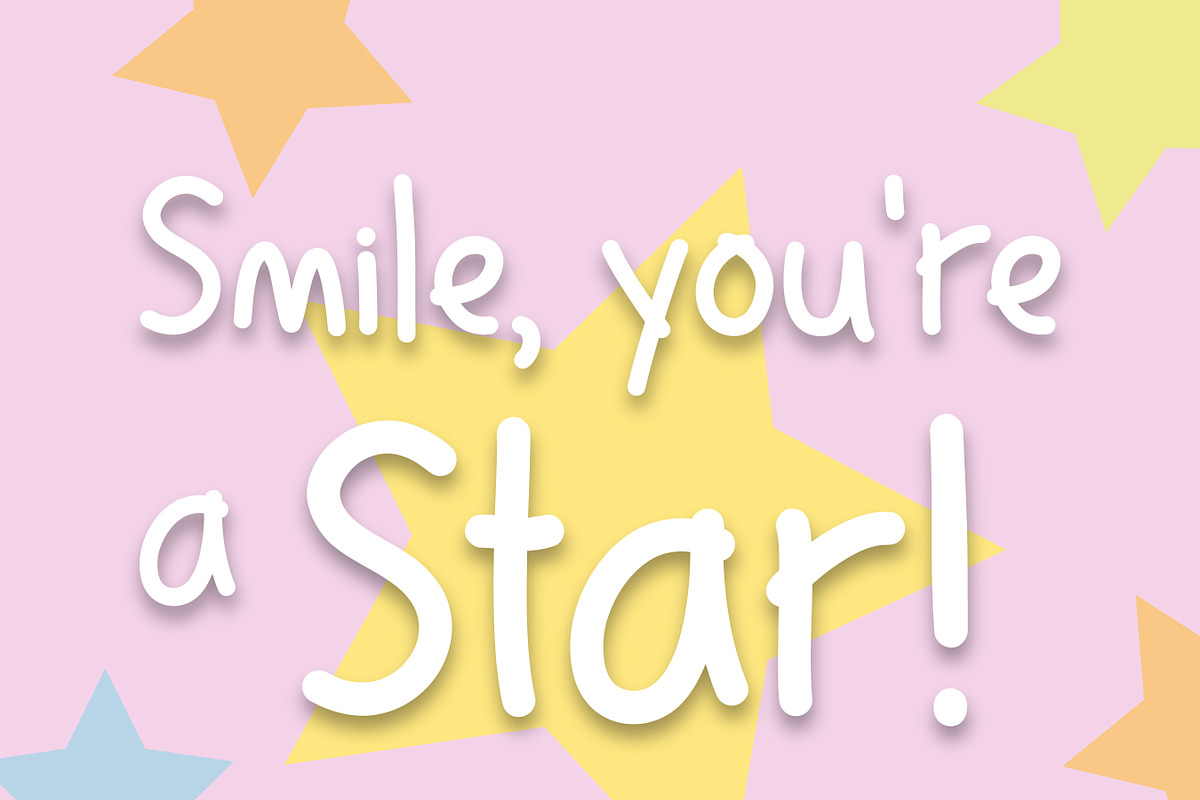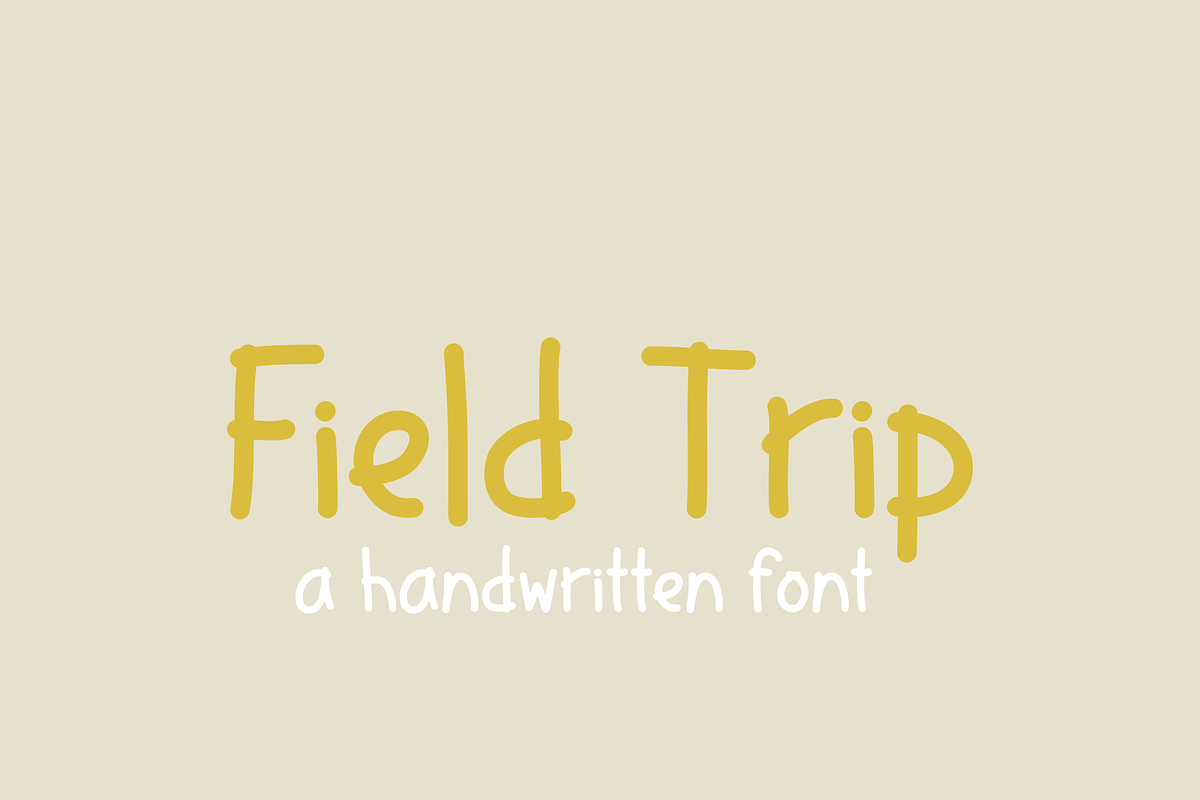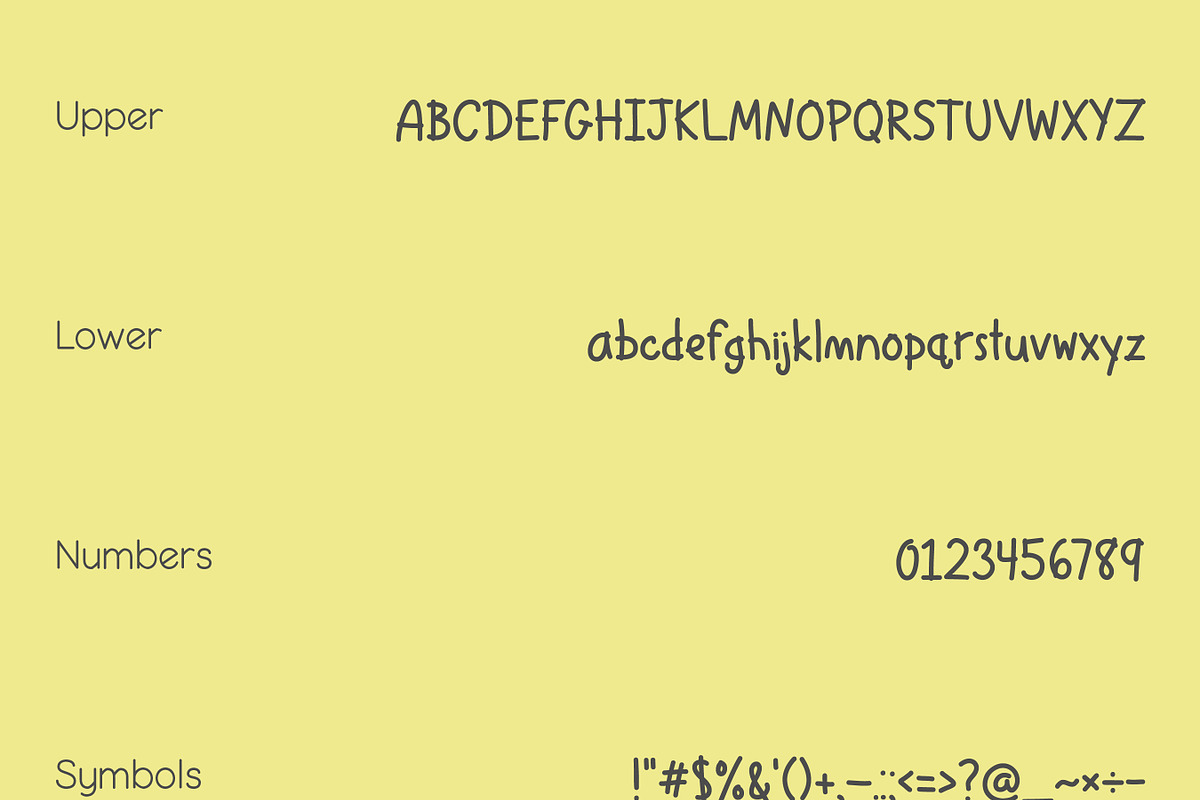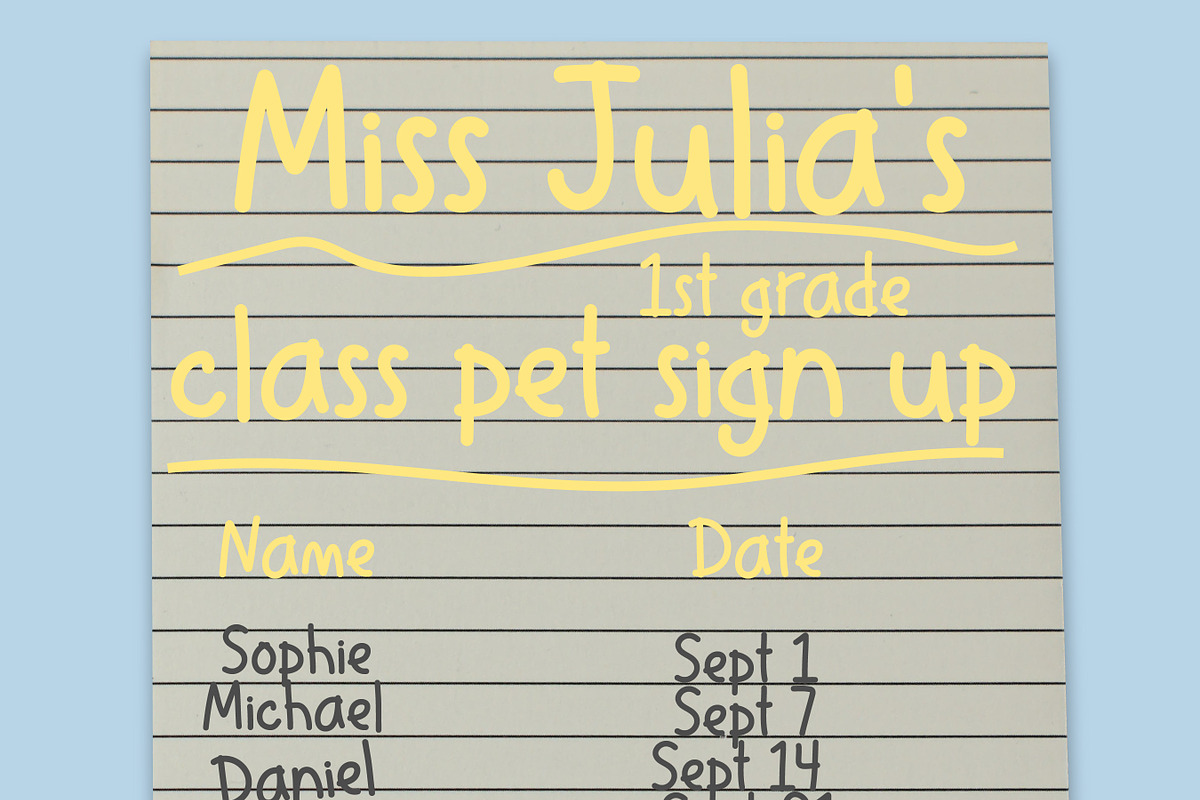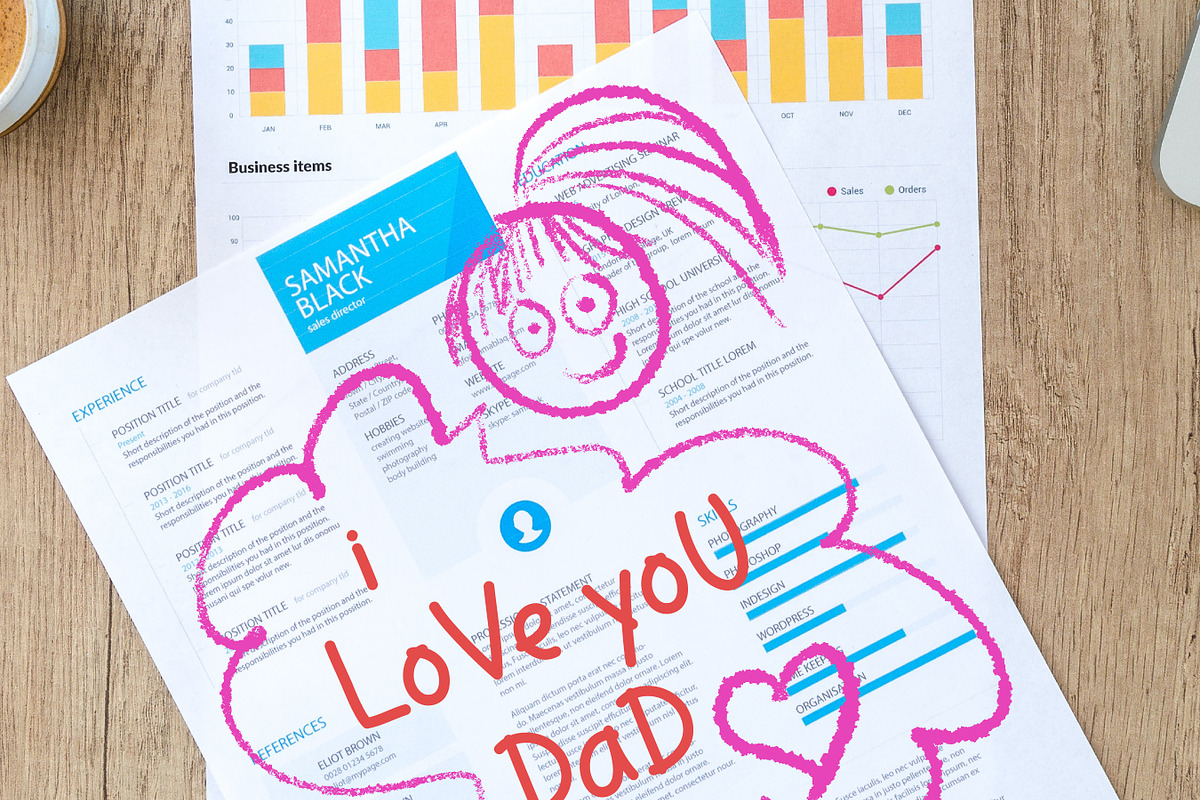
Field Trip Font
Field Trip is a handwritten messy font. It encompasses a natural and childlike writing that is perfect for use in posters, sublimation, digital planners, and so much more.